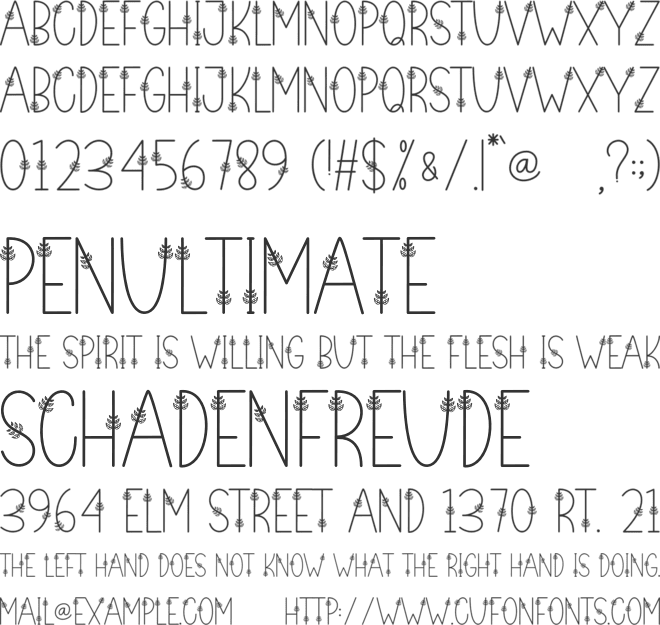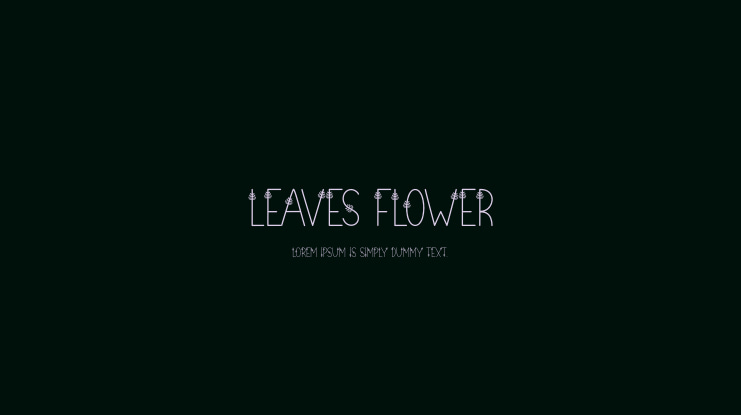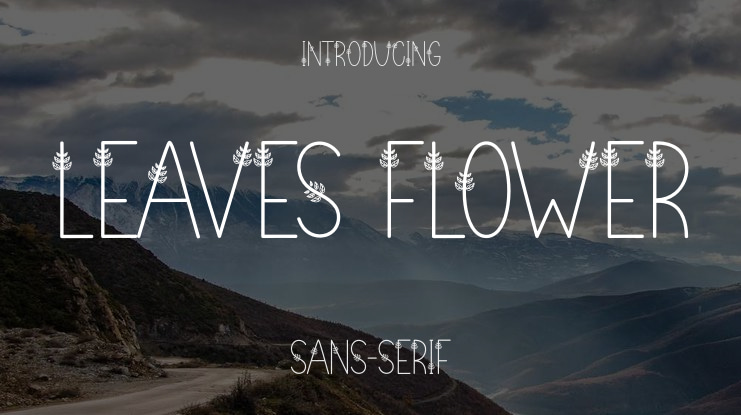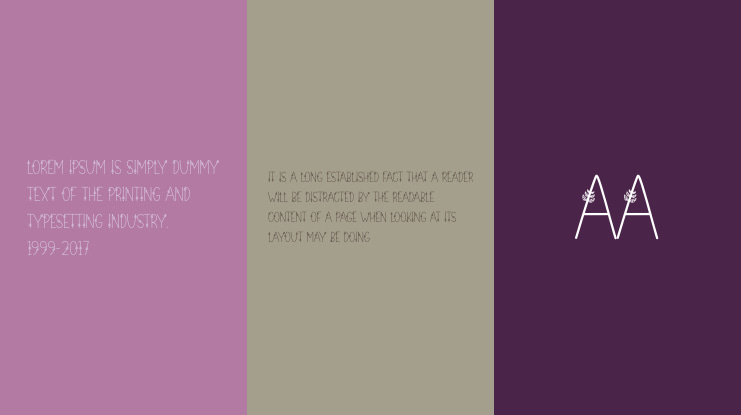
Leaves Flower Font
Are you looking for special creative products that will provide you with a unique experience? Our products offer the latest stylish fonts that are perfect for various uses such as wall displays, wedding invitations, logos for social media posts, advertisements, product packaging, labels, photography, watermarks, invitations, stationery, and any project that requires elegant handwriting.